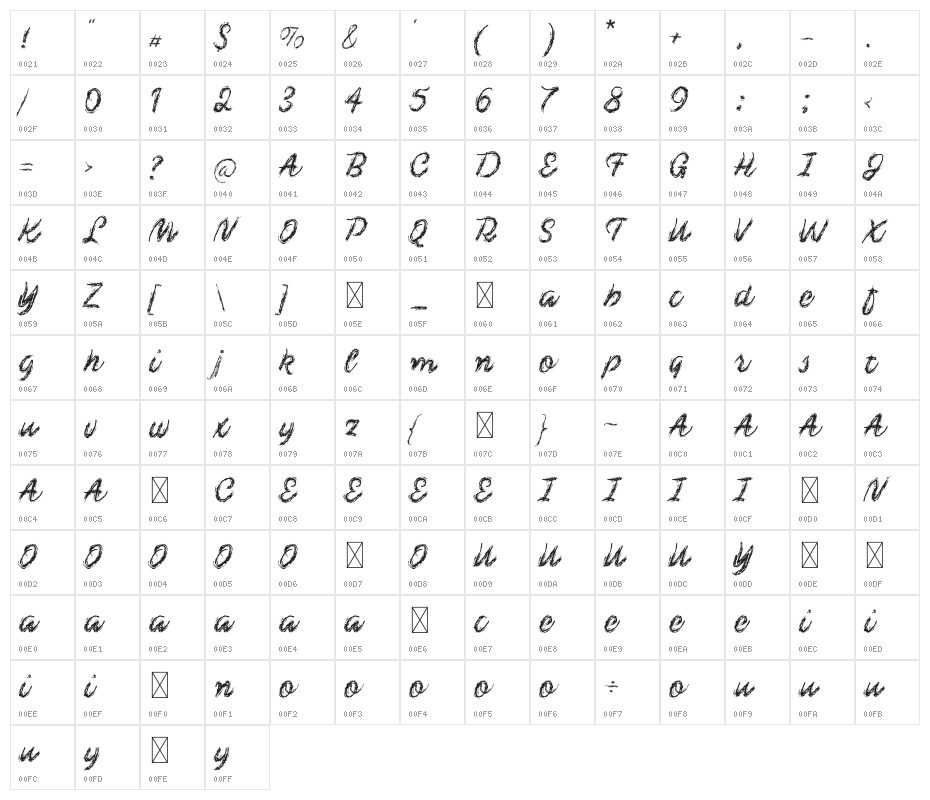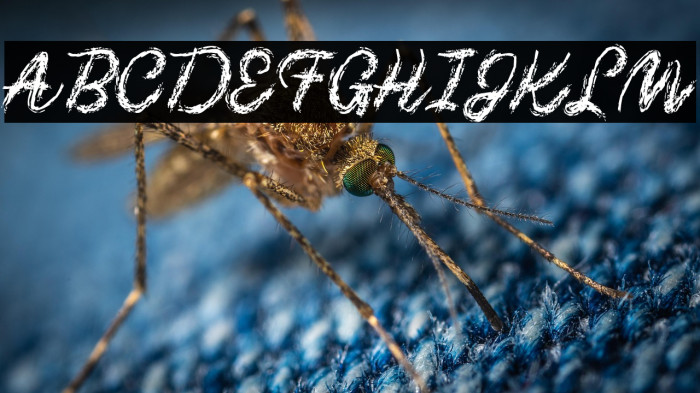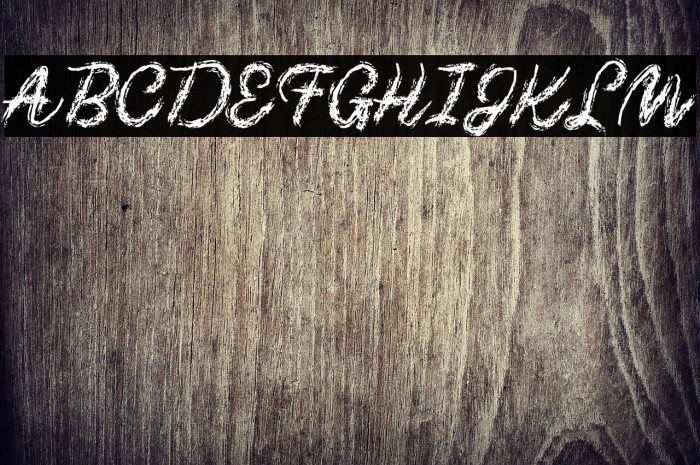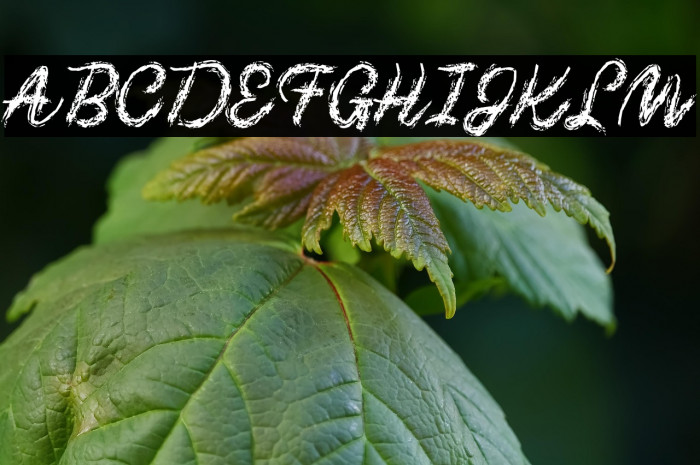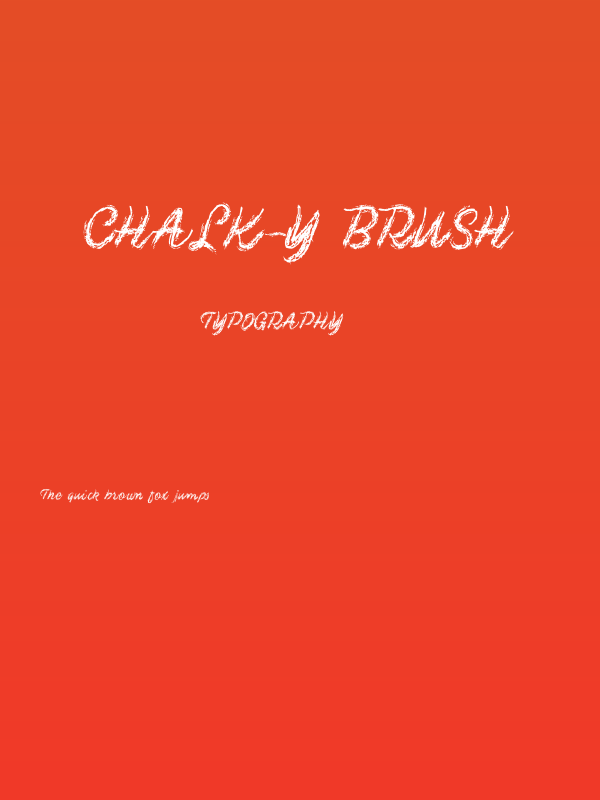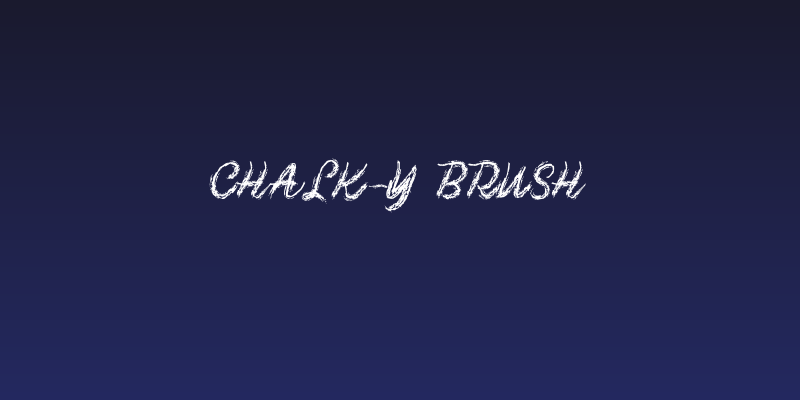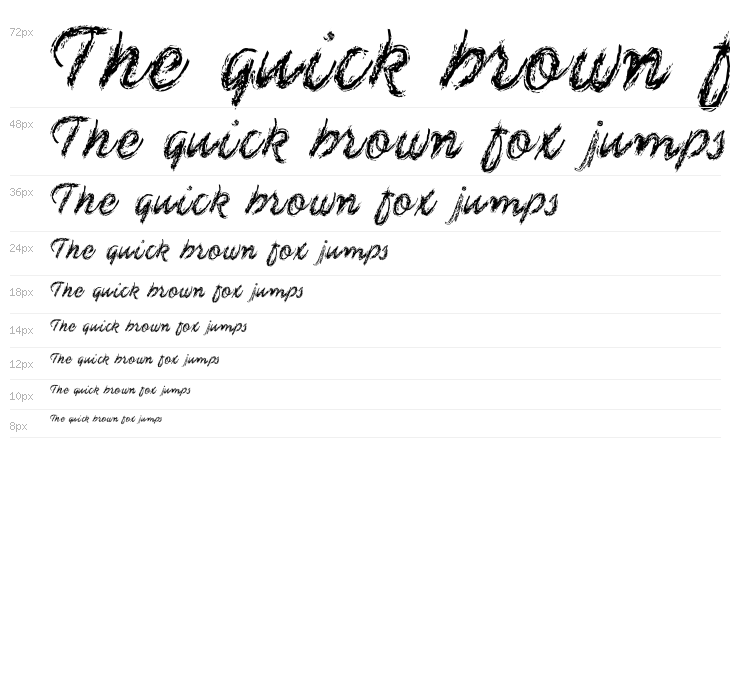
Chalk-y Brush Font
Chalk-y Brush Description
This font features a dynamic, textured brush style that mimics the appearance of chalk on a blackboard. The letters are fluid and connected, giving a sense of movement and energy. Each character is uniquely crafted with rough edges and varying stroke widths, creating an organic and hand-drawn feel. The uppercase and lowercase letters maintain a consistent style, while the numbers and special characters integrate seamlessly with the overall aesthetic. This font exudes a casual yet artistic vibe, perfect for projects that require a personal touch.
| Use Case | Headlines, Logos, Artistic designs |
| Proposed Projects | Ideal for educational materials, creative posters, cafe menus, and artistic branding projects. |